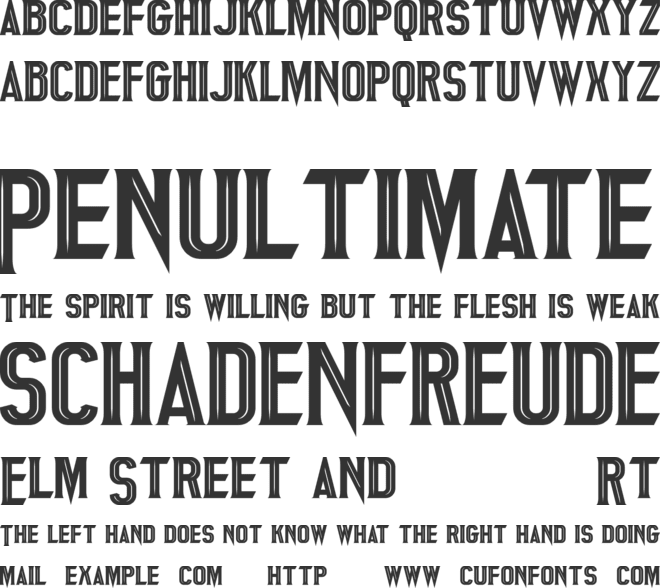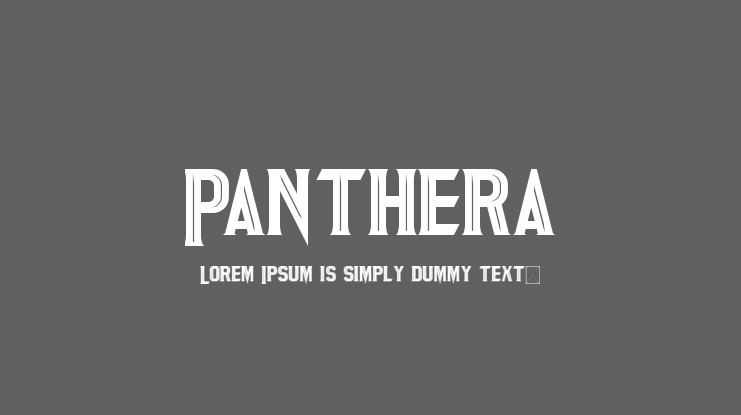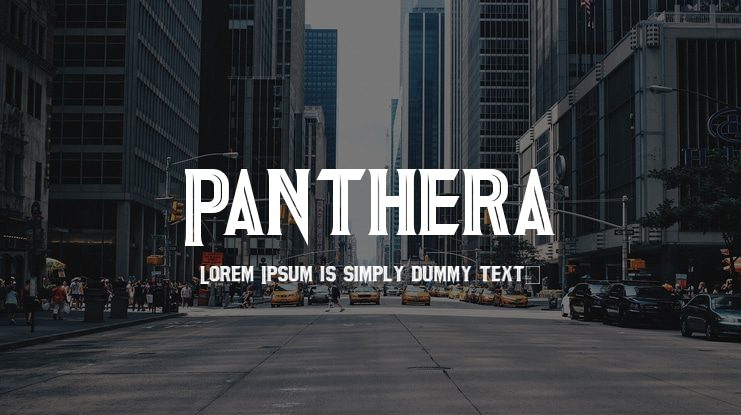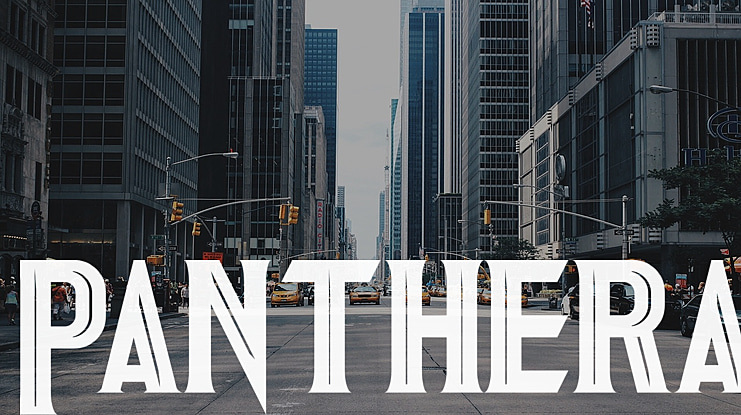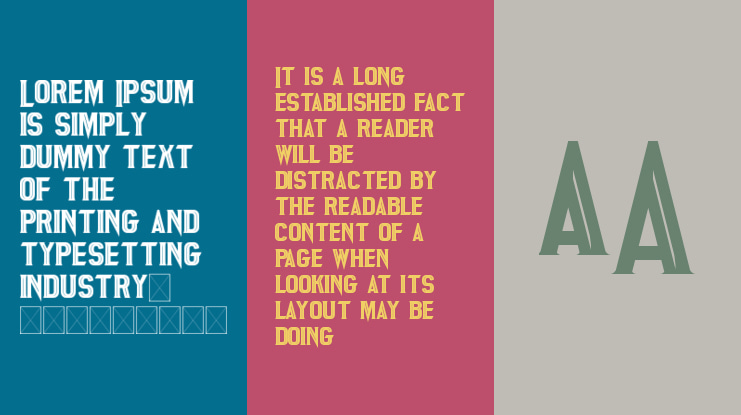
Panthera Font
The Black Panther is the most dramatic Marvel film to come out yet. My jaw dropped when I experienced Oakland being represented in the Marvel Cinematic Universe. And when Too Short was playing in the background I almost lost it. Wakanda Forever! I’m sorry I didn’t create this for the opening, but here it is for Avengers Infinity War.